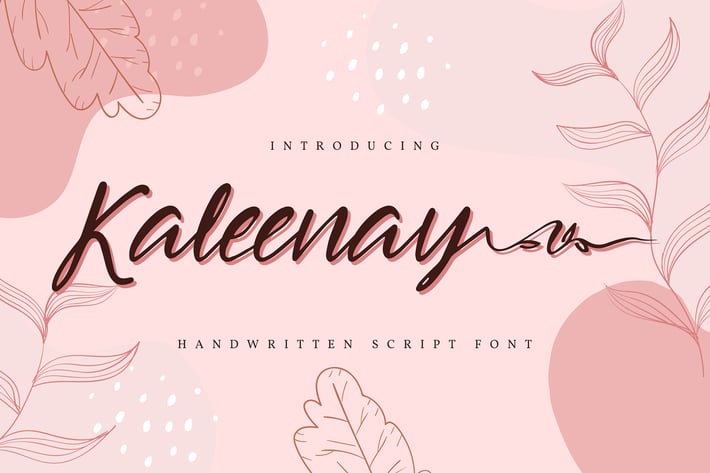
Kaleenay | Handwritten Script Font
Kaleenay | Handwritten Script Font with a calligraphy style, So beautiful on invitation like greeting cards, branding materials, business cards, quotes, posters, and more!